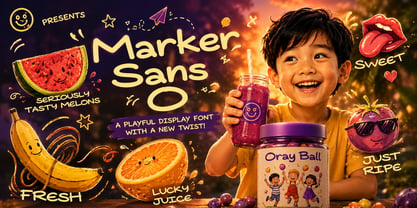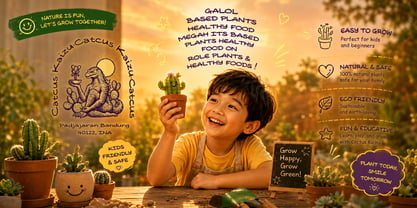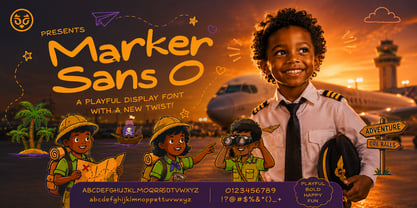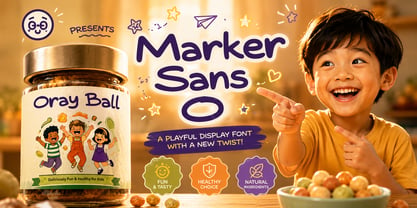
Marker Sans O
by O Type Foundry
The Marker Sans O Font Family was designed by Galang Persada and published by O Type Foundry. Marker Sans O contains 1 styles. More about this family
Peekaboo! Say hello to Marker Sans O, the most playful, giggly, and quirky little typeface you'll ever meet! Created with quick, whimsical strokes that look just like your favorite chunky marker, this font is bursting with bouncy, unstoppable energy. It’s absolutely perfect for shouting out super-duper big Headlines, whispering funny secrets in comic book text bubbles, or bringing magical bedtime stories to life in children's books. Whether you're building a colorful new branding project for a kids' snack, designing toy packaging, or just making something wonderfully silly, Marker Sans O is ready to jump in and play! And guess what? It’s a super smart cookie too, packed with full Latin-Pro support so you can spread the fun to friends all over the world. It's got that hand-scribbled, messy-but-cute, I-dare-you-not-to-smile vibe that makes every single word look like a little adventure. Ready to make your designs as unforgettable as a favorite childhood memory? Don't just buy a font; invest in a magic wand for your design toolkit! Every playful project needs a joyful soul, and Marker Sans O is guaranteed to bring that extra sprinkle of happiness to your clients and audiences. Think of it as a long-term investment in your creative storytelling—bringing you a massive Return on Imagination (ROI)! Grab this little guy today, add a whole lot of fun to your typographic playground, and let's make some magic together!
Designers: Galang Persada
Foundry: O Type Foundry
Marker Sans O